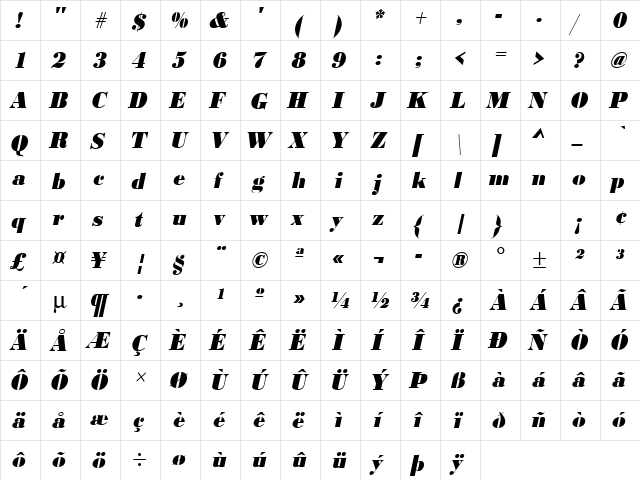
URWBodoniDExtBolExtNar Oblique Font Preview
URWBodoniDExtBolExtNar Oblique
Design Context for URWBodoniDExtBolExtNar Typeface
URWBodoniDExtBolExtNar takes a measured approach to typography — its balanced proportions and neutral character make it a reliable workhorse for both digital and print work. The slanted form adds forward momentum and visual energy.
Pro Tip: Try URWBodoniDExtBolExtNar for annotation and caption copy alongside an upright companion — the contrast in angle creates a dynamic but ordered typographic system.